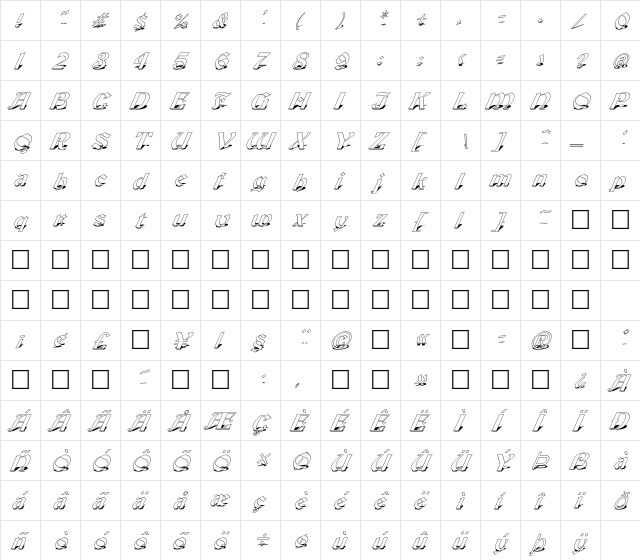
FZ JAZZY 19 SHADOW ITALIC Normal
Design Context for FZ JAZZY 19 SHADOW ITALIC Typeface
FZ JAZZY 19 SHADOW ITALIC is built around its visual character rather than neutral utility — its distinctive forms are designed to make an impression at display sizes. The slanted form adds forward momentum and visual energy.
Font Pairing: Pair with a clean neutral sans-serif for body copy to let FZ JAZZY 19 SHADOW ITALIC's character lead without overwhelming the composition.
Pro Tip: Use FZ JAZZY 19 SHADOW ITALIC exclusively at display sizes — it was designed to be seen, not read at length. Let a neutral companion handle body copy.